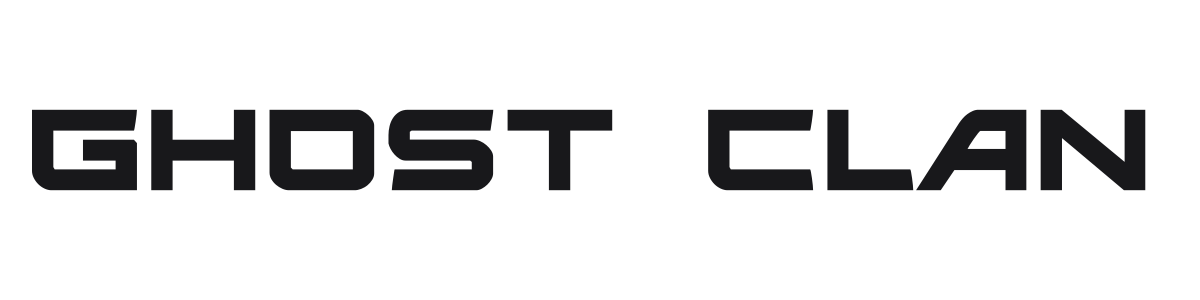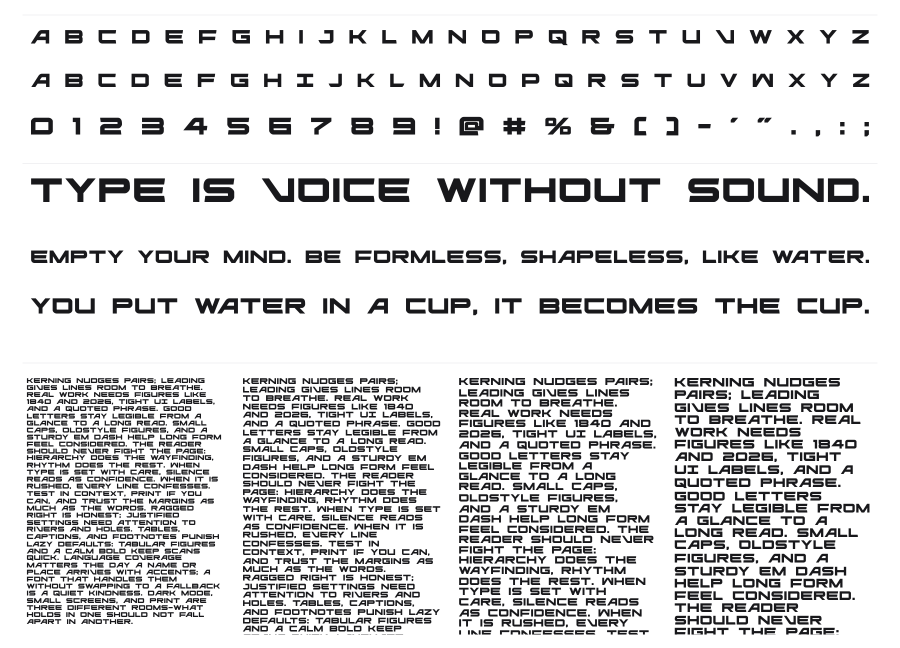
Ghost Clan
Ghost Clan is a wide, heavy square sans with blocky geometry and angular cutouts that give it a militaristic, tactical edge. Letters are built from flat strokes with notched interruptions that suggest stencil plating or armored paneling. It carries serious weight at display sizes, with the kind of visual force that suits action gaming, sports branding, and hard-edged editorial headlines.